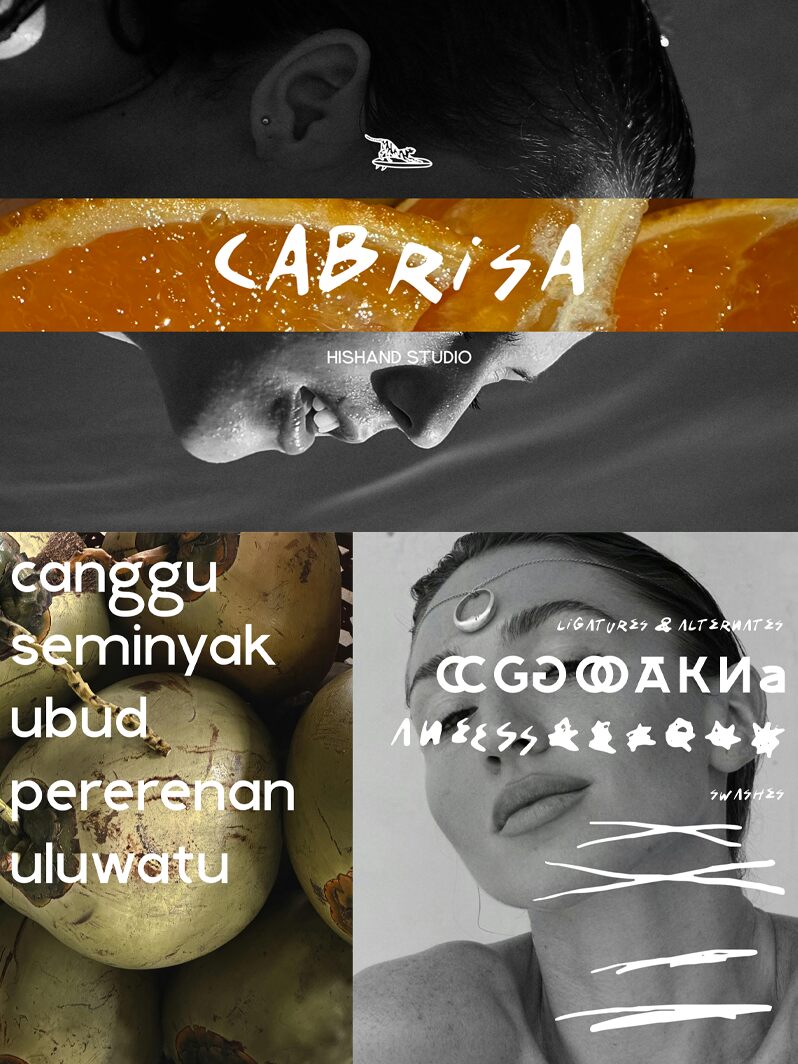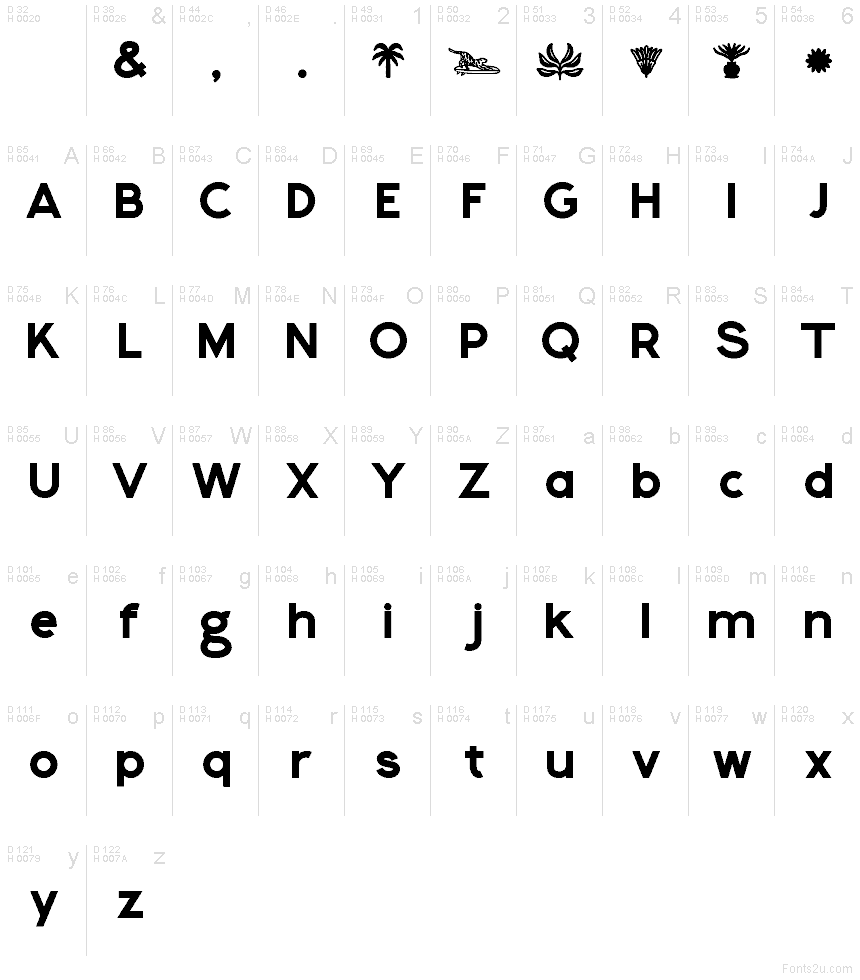
Cabrisa font, designed by Hishand Studio, mesmerizes with slender and easy-to-read characters. The font’s raw outlines appear modern and geometrical with a clean overall appearance. This free sans serif font has a minimalist and strong presence often associated with contemporary appeal.
Use Cabrisa on your website, logos, social media posts, stationery designs (business cards), magazines, packaging ideas, or even apparel items typography (T-shirts for example).
Hishand Studio